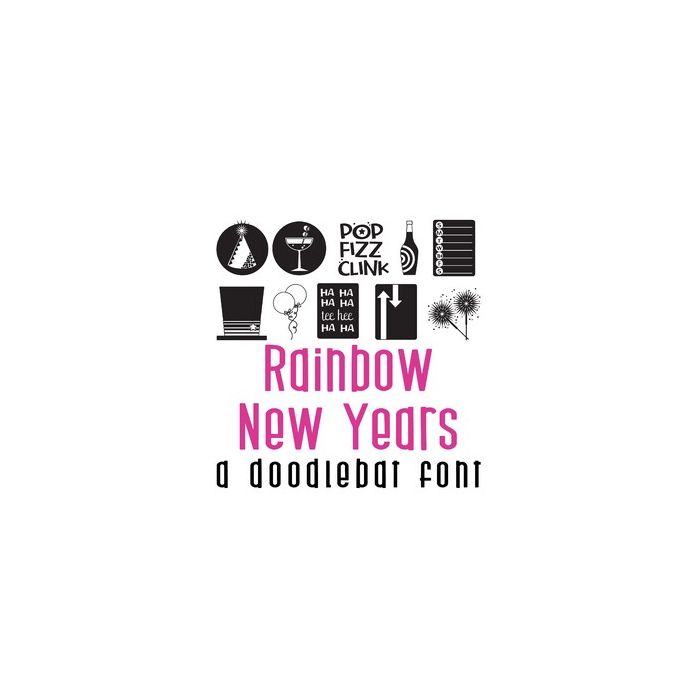
This adorable doodlebat font features 26 New Years images and project life cards. Perfect for cards, crafts, gifts, decor, scrapbook pages, planner stickers, and more!